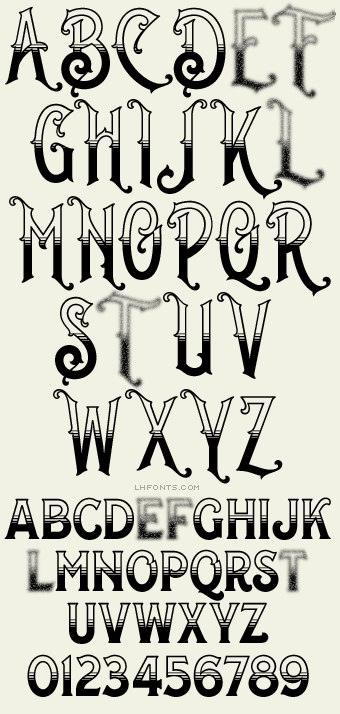
Modeled after old coffee, chewing gum, soda, and cigar box labels, Whistler's bold strokes and various insets invite you to experiment with its many creative possibilities. Features decorative caps and 4 different Insets to complete your designs. Set includes 6 fonts: Regular, Shadow & 4 Insets. You might also like Elixir 2 and Hensler 2.